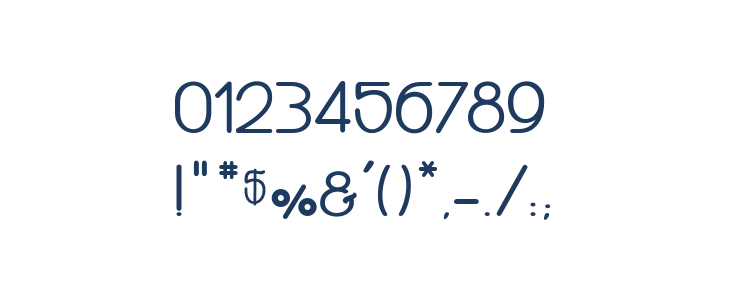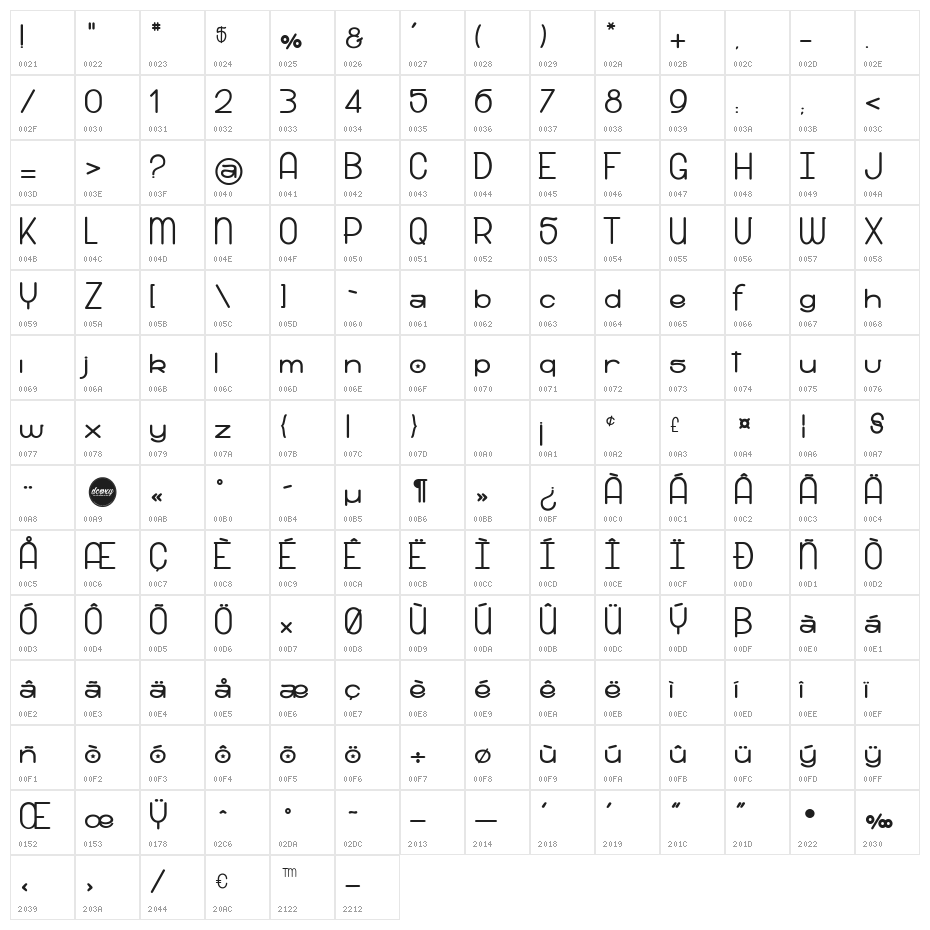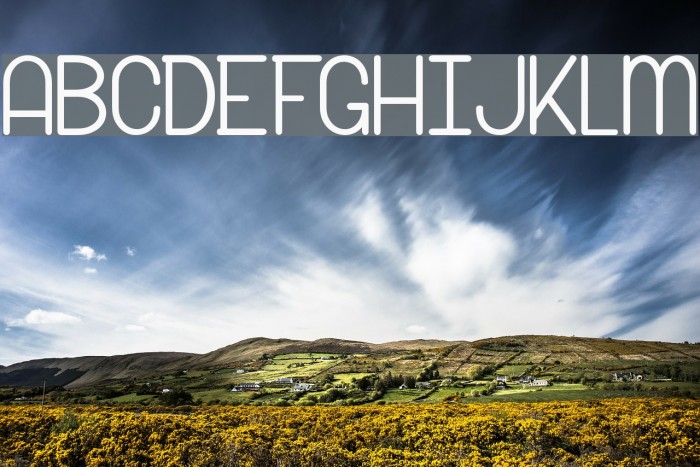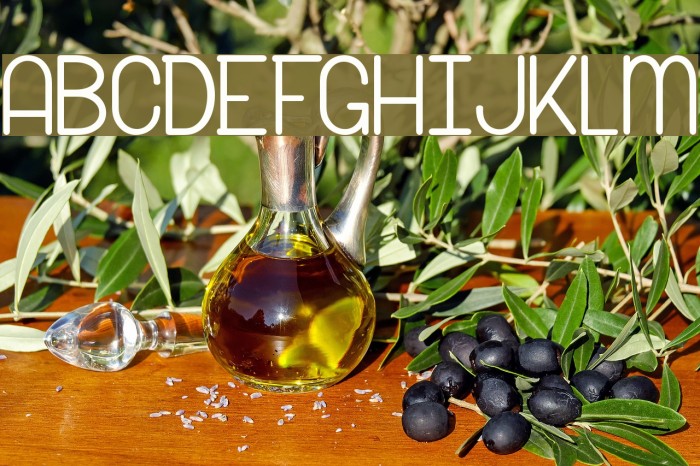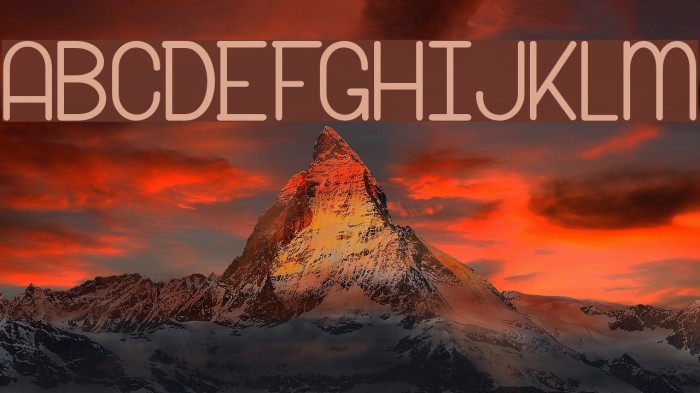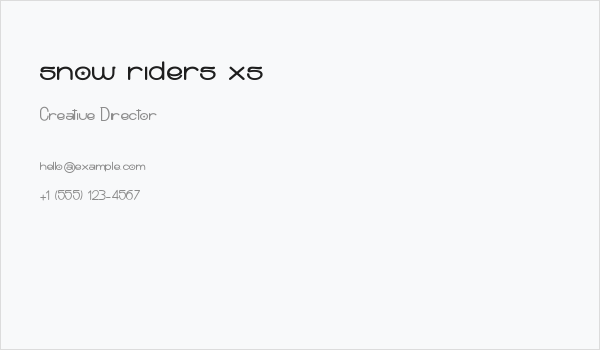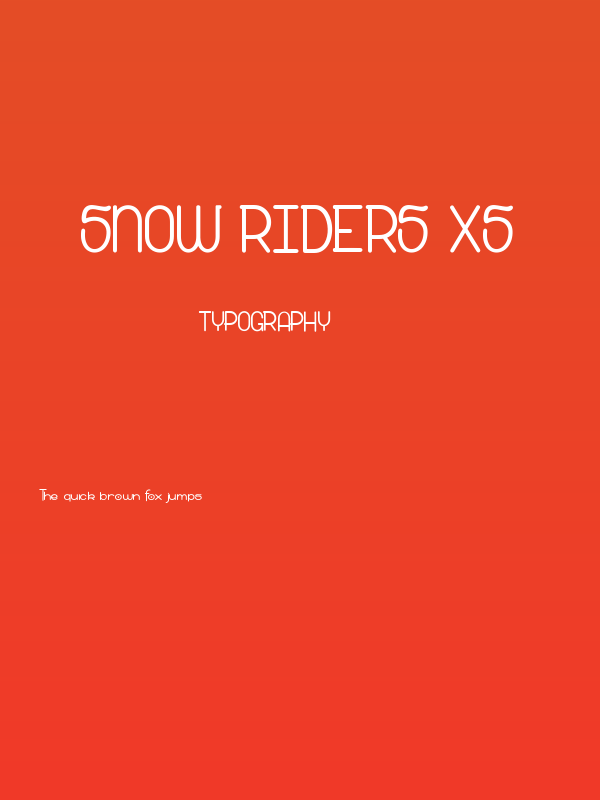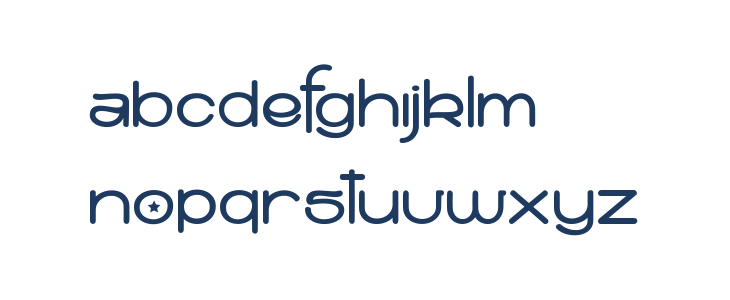
snow riders xs Font
snow riders xs Description
This font features a playful and rounded design, characterized by its smooth curves and consistent stroke width. The uppercase letters are tall and narrow, while the lowercase letters maintain a similar width, creating a harmonious balance. The numerals are clear and legible, matching the overall style of the alphabet. Special characters are creatively integrated, with a unique flair that adds to the font's charm. The uniformity in stroke width gives it a clean and modern appearance, making it suitable for various design applications.
| Proposed Projects | Ideal for children's books, playful branding, casual invitations, and creative posters. |